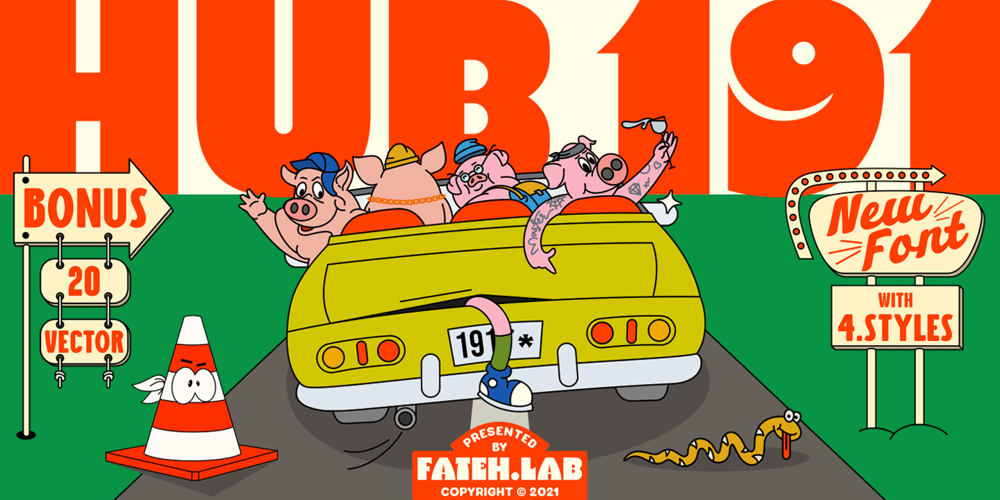
Hub 191
Hub 191 font
Hub 191 Font Family was designed by Wisnu Cipto Wibowo and published by Fateh.Lab. Hub 191 contains 4 styles and family package options. Hub 191 is a very Cheerful font, and with a very different style from the rest. Its weight is superior in posters, social media, headlines, magazine titles, clothing, large print formats – and anywhere you want it to be seen. Inspired by the design style that is currently popular, and this is the answer to all the needs of every idea that you will pour in this modern era.